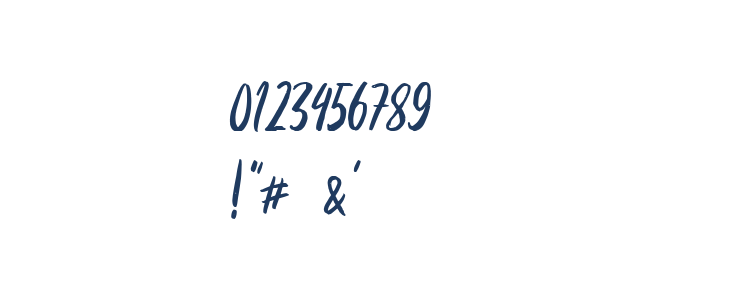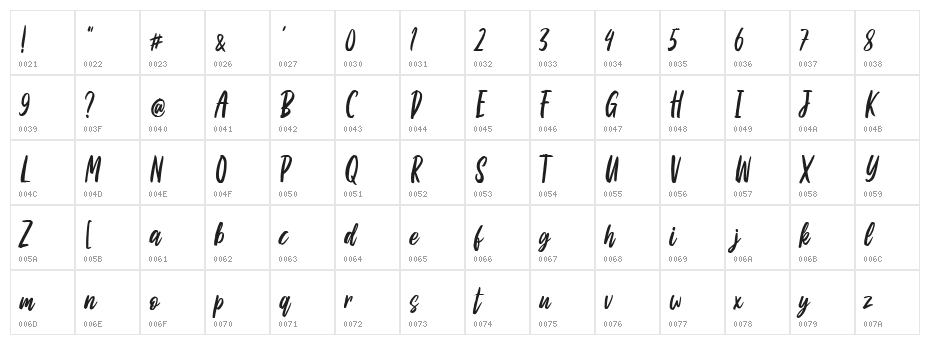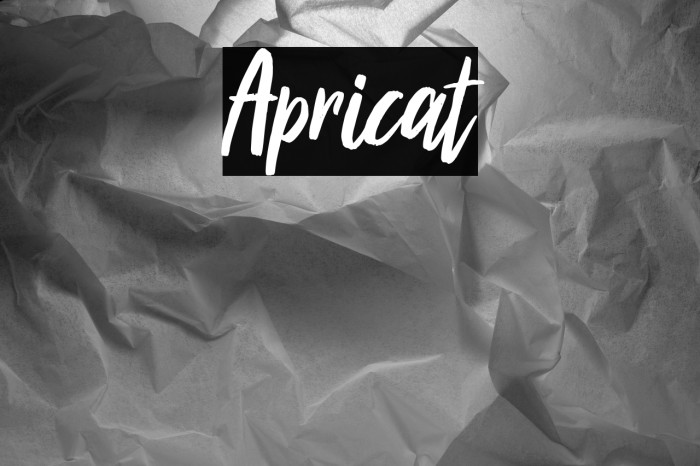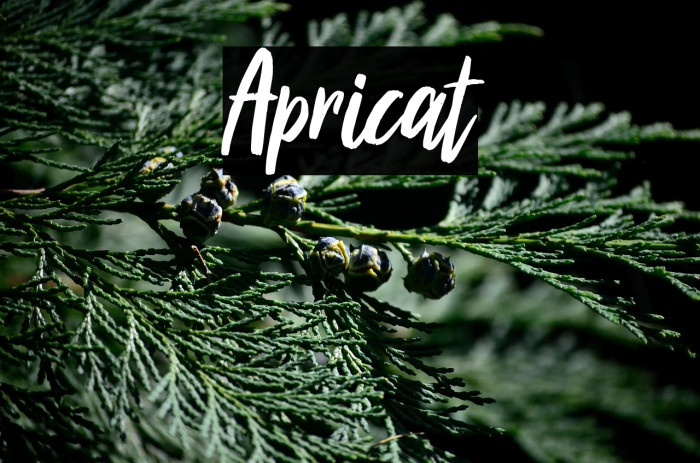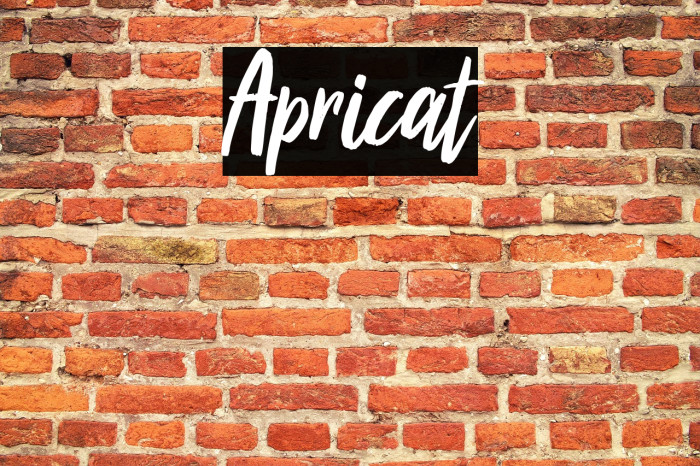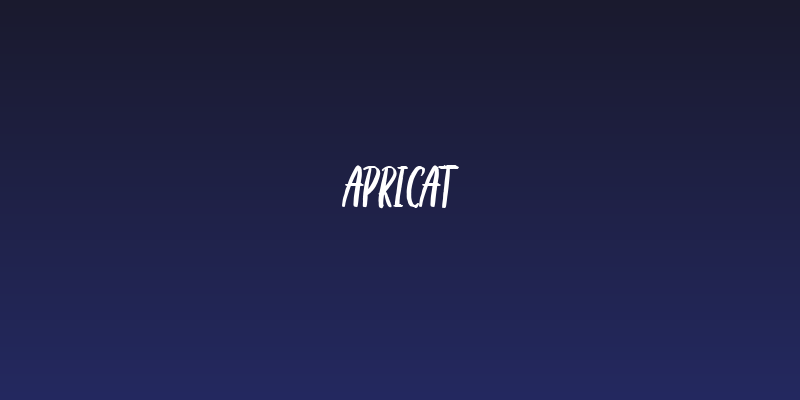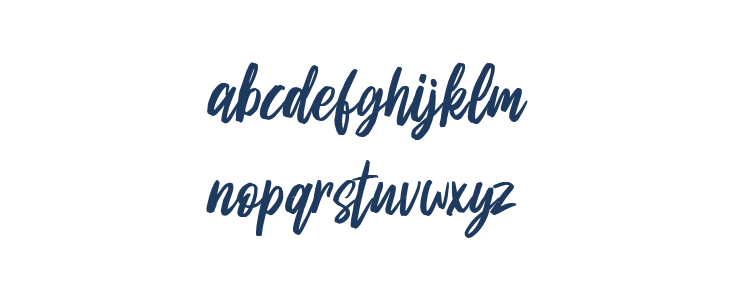
Apricat Font
Apricat Description
This font exudes a lively and energetic vibe with its bold, brush-like strokes that give it a handwritten appearance. The letters are slightly slanted, adding a dynamic flow to the text. The uppercase characters are tall and commanding, while the lowercase letters maintain a consistent style with a playful touch. Numbers are clear and easy to read, complementing the overall aesthetic. Special characters are creatively integrated, maintaining the font's artistic flair. This font is perfect for projects that require a personal, creative touch, such as invitations, posters, or branding materials.
| Proposed Projects | Ideal for invitations, posters, branding, and any creative projects needing a personal touch. |